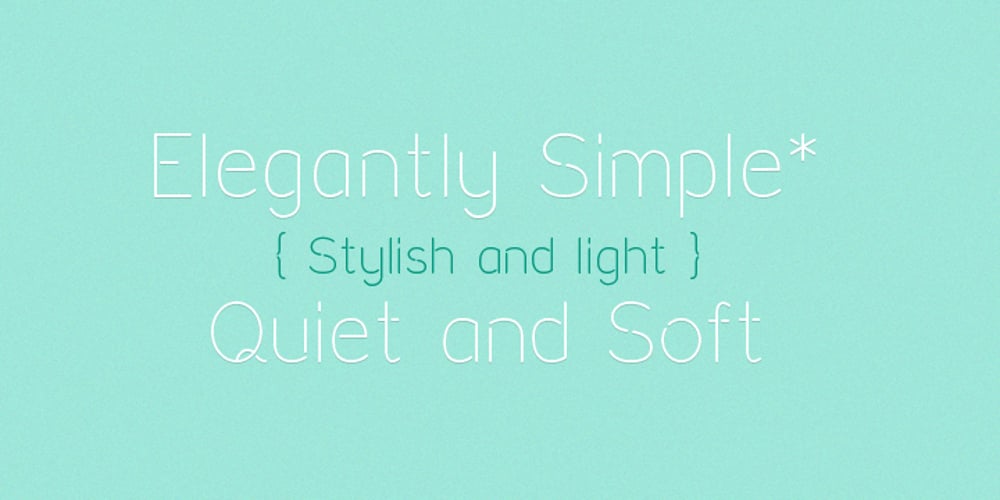
Reacher Sans Font Family was designed by Kyle Lambert and published by Callout. Reacher Sans contains 1 styles and family package options. Reacher-Sans is an elegantly simple sans-serif font. Designed for versatility, it possesses unique letters perfect for logos and still maintains a simple and readable look beautiful for both headlines and large blocks of text.